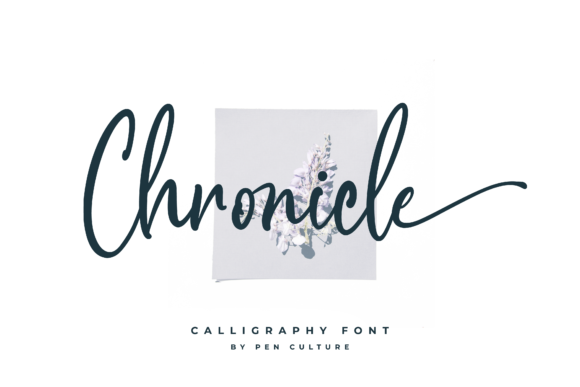
Embrace the allure of Chronicle Font, an extraordinary script font that effortlessly blends the charm of the past with the allure of the modern. This versatile font, crafted by the ingenious Pen Culture, transcends the boundaries of timelessness, complementing a diverse spectrum of design projects with its timeless elegance and captivating grandeur.
Chronicle Font is a true masterpiece, a harmonious fusion of classicism and contemporary flair. Its meticulously crafted glyphs exude an aura of sophistication, effortlessly evoking a sense of luxury and refinement. Whether you seek to elevate your personal correspondence or leave an indelible mark in the realm of branding, Chronicle Font is your steadfast companion, guiding you towards design excellence.
Step into the world of Chronicle Font and unlock the gateway to boundless creativity. With its innate versatility, this font adapts seamlessly to a myriad of applications, embracing stationery, branding, and every artistic endeavor in between. Chronicle Font's inherent adaptability ensures that your designs will radiate with a timeless elegance, resonating with audiences across diverse platforms and mediums.
Chronicle Font is more than just a font; it's a conduit for expressing your unique identity and style. Its graceful curves and impeccable balance evoke emotions that transcend the boundaries of language, seamlessly bridging the gap between your creative vision and the hearts of your audience.
Indulge in the sensory symphony of Chronicle Font and let your designs dance with an ethereal grace. Its presence commands attention, captivating onlookers with its exquisite beauty and undeniable charm. Chronicle Font is the catalyst for design brilliance, transforming ordinary projects into extraordinary masterpieces that leave an indelible mark on the minds of all who behold them.